help with identifying a font
can anyone help me with identifying this font?
looks like franklin
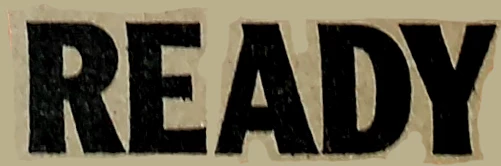
Clearface Gothic it seems.
How did you get it?
Just good with typefaces?
Yes, many years of experience and a gift for identifying typefaces I've seen before.